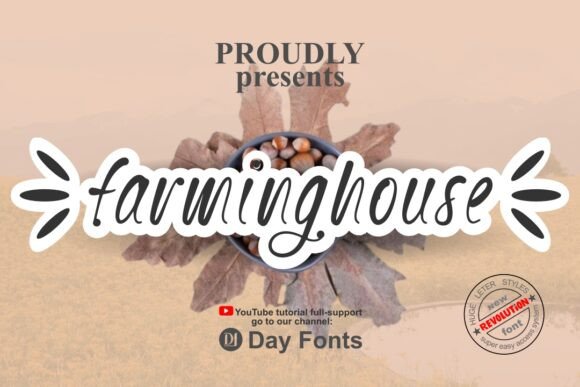
Farminghouse Font: Elevate Your Designs with a Touch of Elegance
In the world of typography, fonts play a crucial role in conveying the tone and personality of a design. For designers and crafters looking to add a touch of sophistication and modernity to their projects, the Farminghouse Font is an excellent choice. This trendy handwritten font boasts a contemporary atmosphere, clean lines, and impeccable form, making it perfect for a wide range of design applications.
What is Farminghouse Font?
Farminghouse Font is a stylish and elegant handwritten font that exudes a sense of refinement and luxury. Its clean and modern design makes it an ideal choice for designers seeking to create visually stunning projects. Whether you’re working on a branding project, crafting a beautiful wedding invitation, or designing a stylish poster, Farminghouse Font is sure to impress.
Key Features of Farminghouse Font
- Trendy and Modern Design: Farminghouse Font features a contemporary design that is sure to make your projects stand out.
- Clean and Impeccable Form: The font’s clean lines and precise curves create a sense of elegance and sophistication.
- Handwritten Style: The font’s handwritten style adds a touch of personality and warmth to your designs.
- Versatile: Farminghouse Font is suitable for a wide range of design applications, from branding and advertising to crafting and scrapbooking.
Benefits of Using Farminghouse Font
So, why choose Farminghouse Font for your design projects? Here are just a few benefits of using this stunning font:
- Elegance and Sophistication: Farminghouse Font adds a touch of luxury and refinement to any design project.
- Improved Readability: The font’s clean design and clear lines make it easy to read, even at small sizes.
- Unique and Memorable: The font’s handwritten style and modern design make it stand out from more traditional fonts.
- Time-Saving: With Farminghouse Font, you can create professional-looking designs in no time, saving you time and effort.
Design Applications for Farminghouse Font
Farminghouse Font is a versatile font that can be used in a wide range of design applications, including:
- Branding and Advertising: Use Farminghouse Font to create stunning logos, business cards, and marketing materials.
- Wedding and Event Design: Add a touch of elegance to your wedding invitations, programs, and other event materials.
- Scrapbooking and Crafting: Use Farminghouse Font to create beautiful journal pages, cards, and other craft projects.
- Poster and Print Design: Create eye-catching posters, flyers, and brochures with Farminghouse Font.
Tips for Using Farminghouse Font
To get the most out of Farminghouse Font, here are a few tips to keep in mind:
- Use it sparingly: While Farminghouse Font is elegant and sophisticated, it can be overwhelming if used too much. Use it sparingly to add a touch of luxury to your designs.
- Experiment with colors: Farminghouse Font looks stunning in a variety of colors, from classic black and white to bold brights and pastels.
- Pair it with other fonts: Try pairing Farminghouse Font with other fonts to create a unique and memorable design.
In conclusion, Farminghouse Font is a stunning handwritten font that is sure to elevate your design projects. With its trendy and modern design, clean lines, and impeccable form, it’s the perfect choice for designers and crafters looking to add a touch of elegance and sophistication to their work. Whether you’re working on a branding project, crafting a beautiful wedding invitation, or designing a stylish poster, Farminghouse Font is an excellent choice.